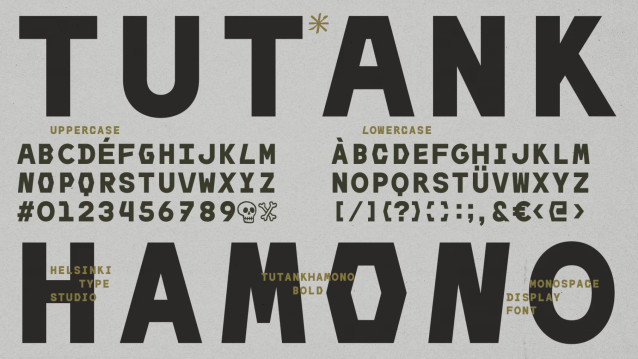
Tutankhamono Font
Tutankhamono Font: Bring the whispers of long-buried kings into the world of the living. Each hieroglyph is a step toward eternal power, a key to unlock hidden chambers. Summon the underworld as you shape their stories.
Manufacturer: Helsinki Type Studio
Designer: Juho Hiilivirta